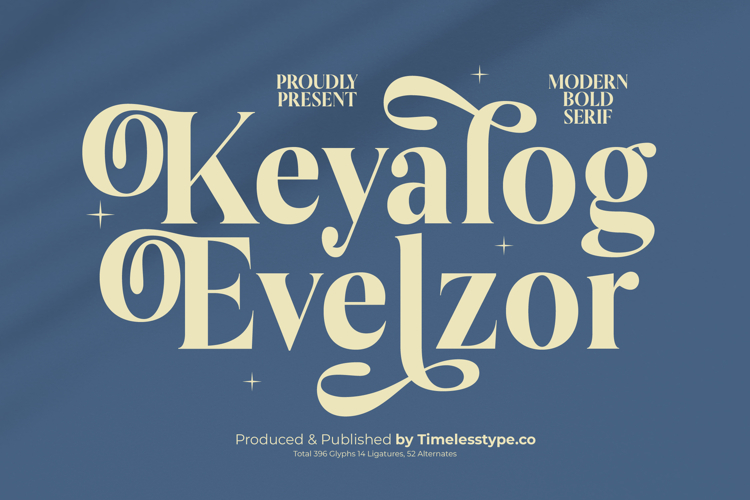
Keyalog Evelzor - Modern Bold Serif
Elevate your designs with the captivating presence of Keyalog Evelzor - Modern Bold Serif, a typeface crafted to make an unforgettable statement. This font perfectly marries classic elegance with a contemporary edge, featuring bold serifs and beautifully flowing swashes that command attention. Its unique personality and high-contrast letterforms ensure your message is delivered with undeniable impact and sophisticated flair.
Discover unparalleled design flexibility with Keyalog Evelzor - Modern Bold Serif, meticulously designed with an abundance of glyphs, ligatures, and stylistic alternates. These intricate details allow for truly custom and expressive typography, transforming ordinary text into a work of art. The seamless interplay of its robust weight and delicate curves creates a visual harmony ideal for any project demanding both strength and grace.